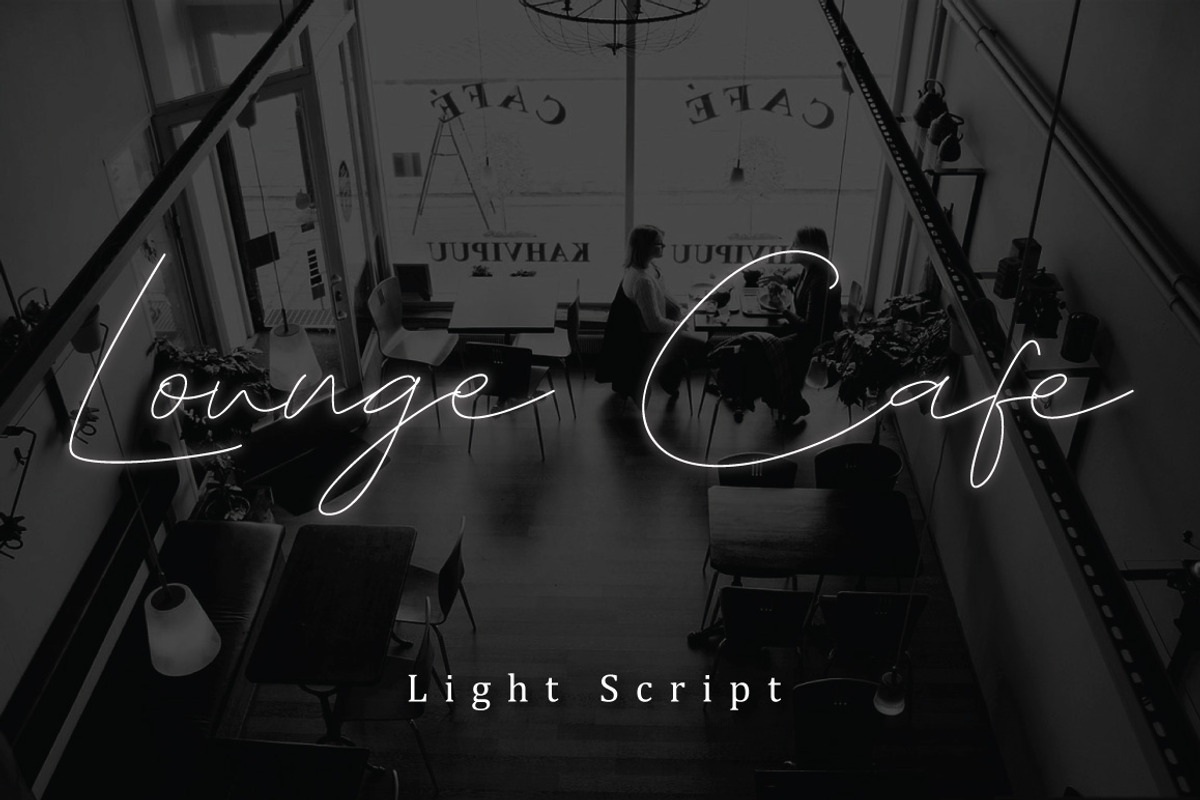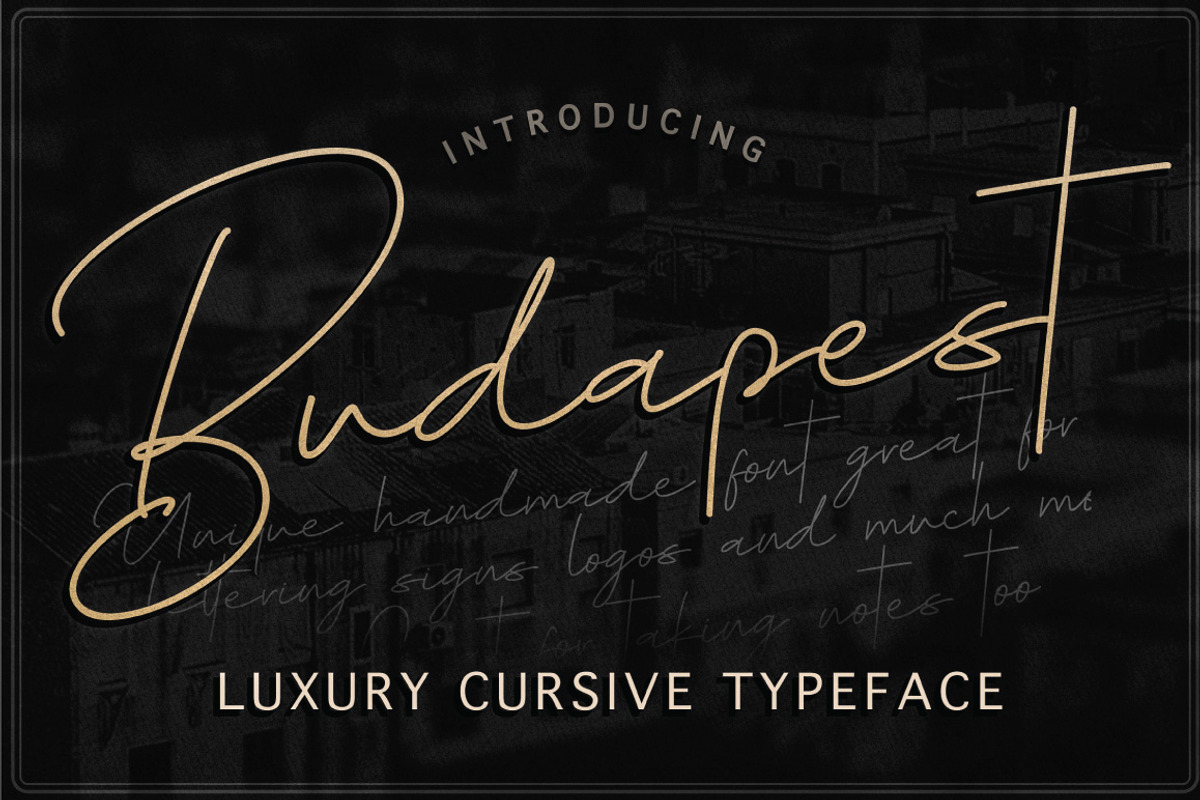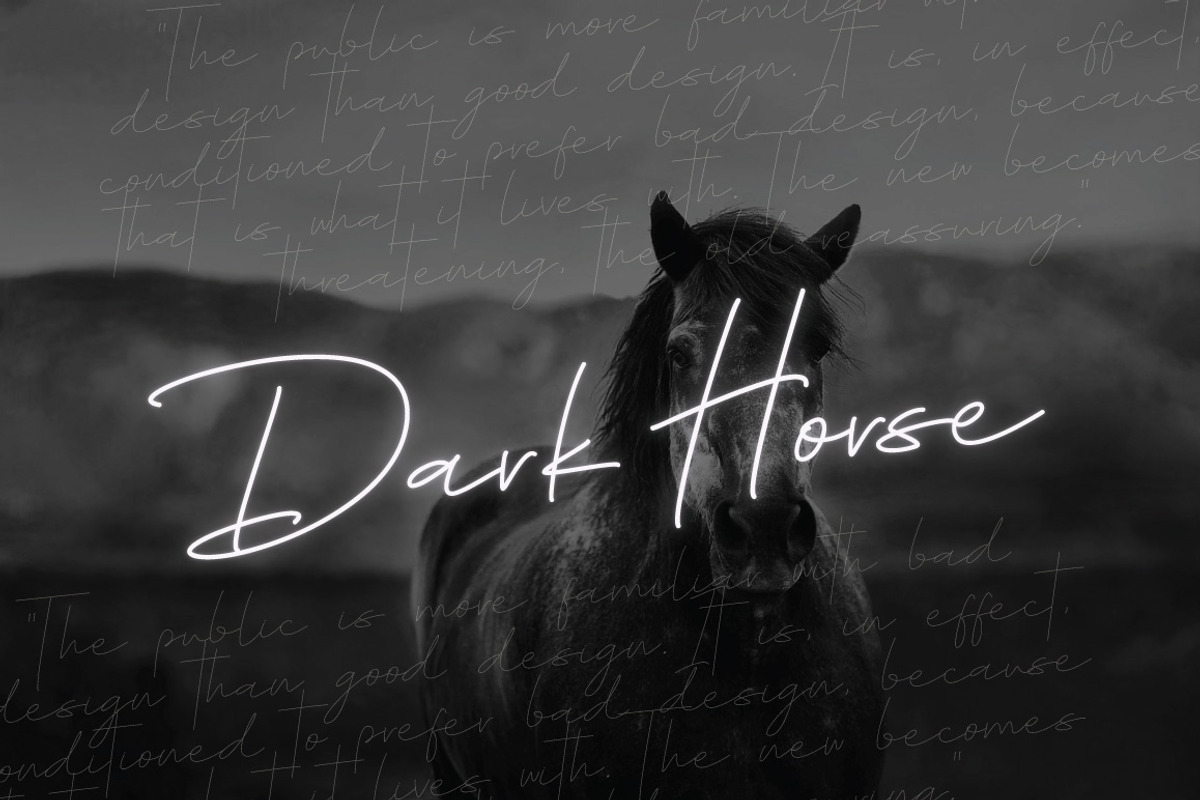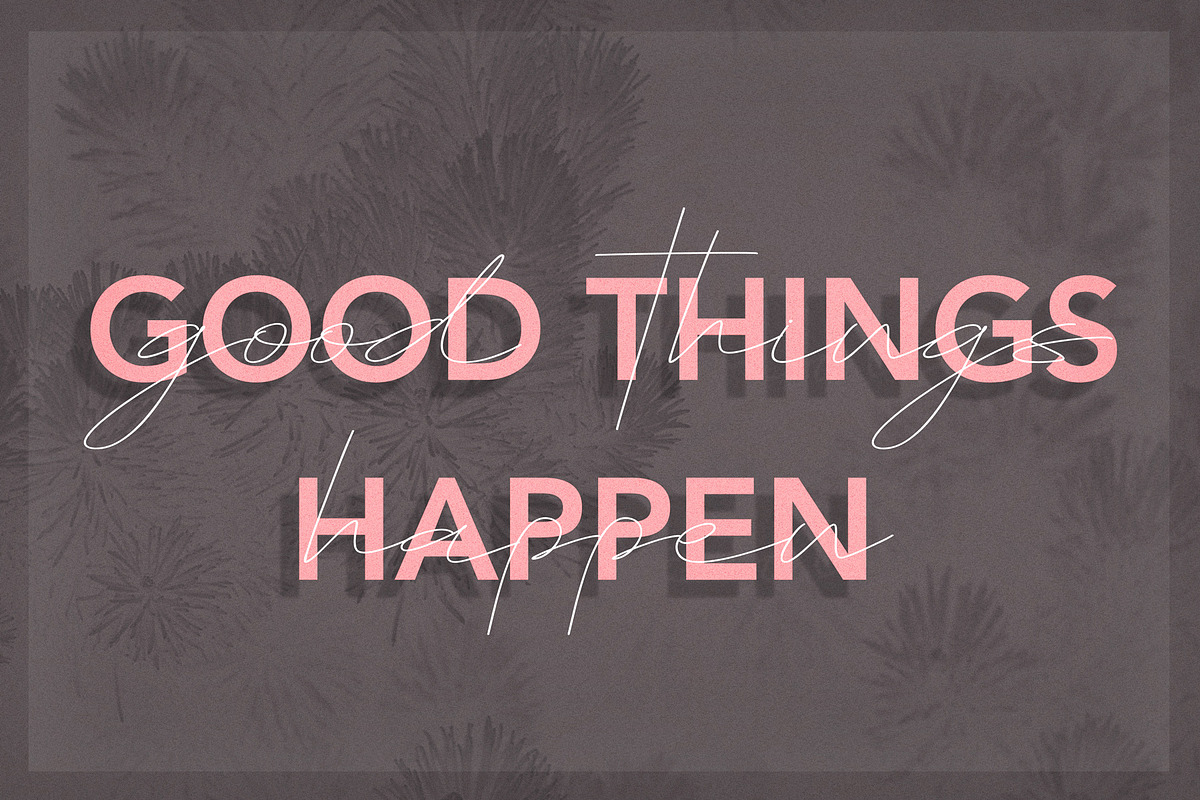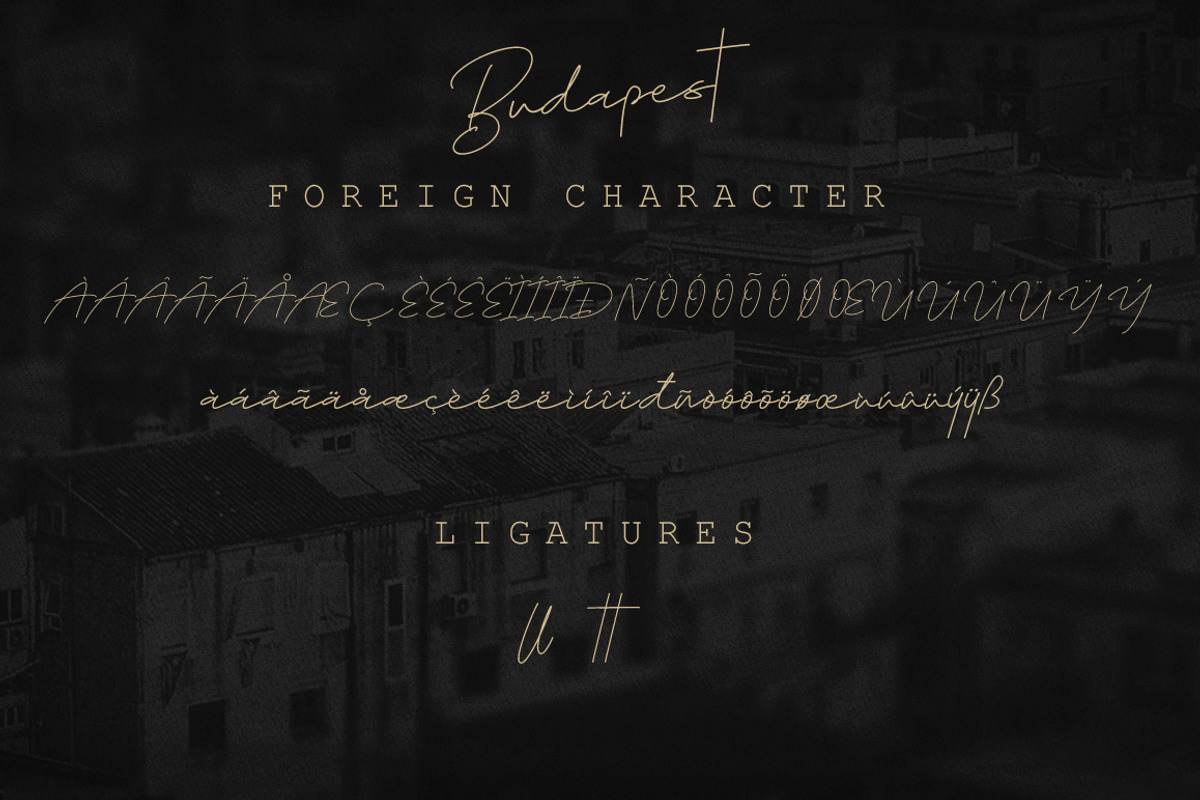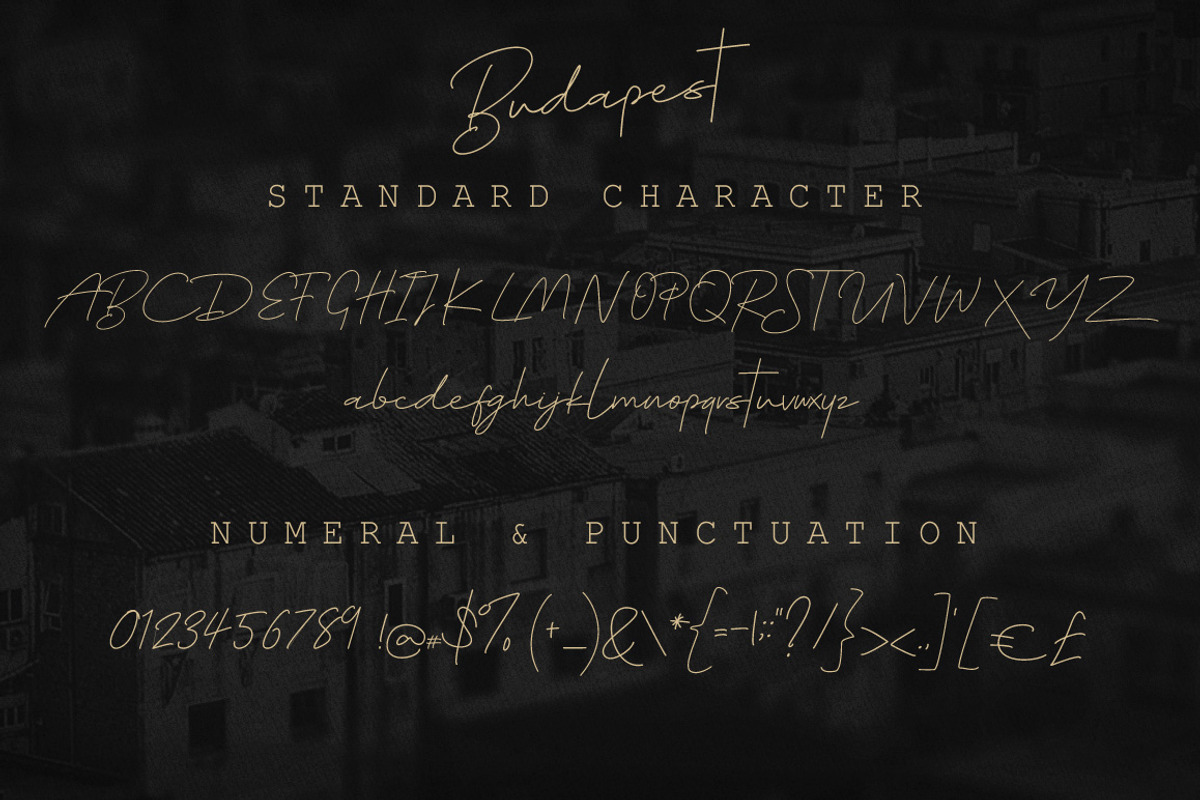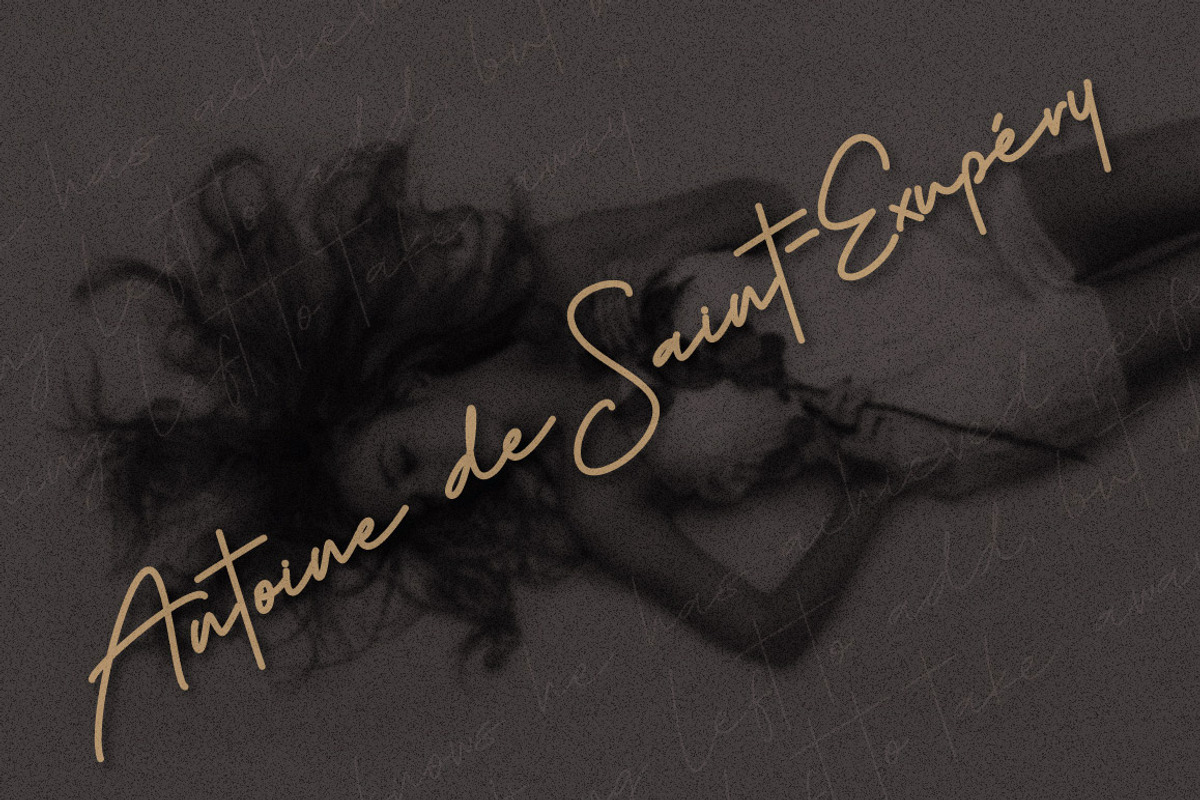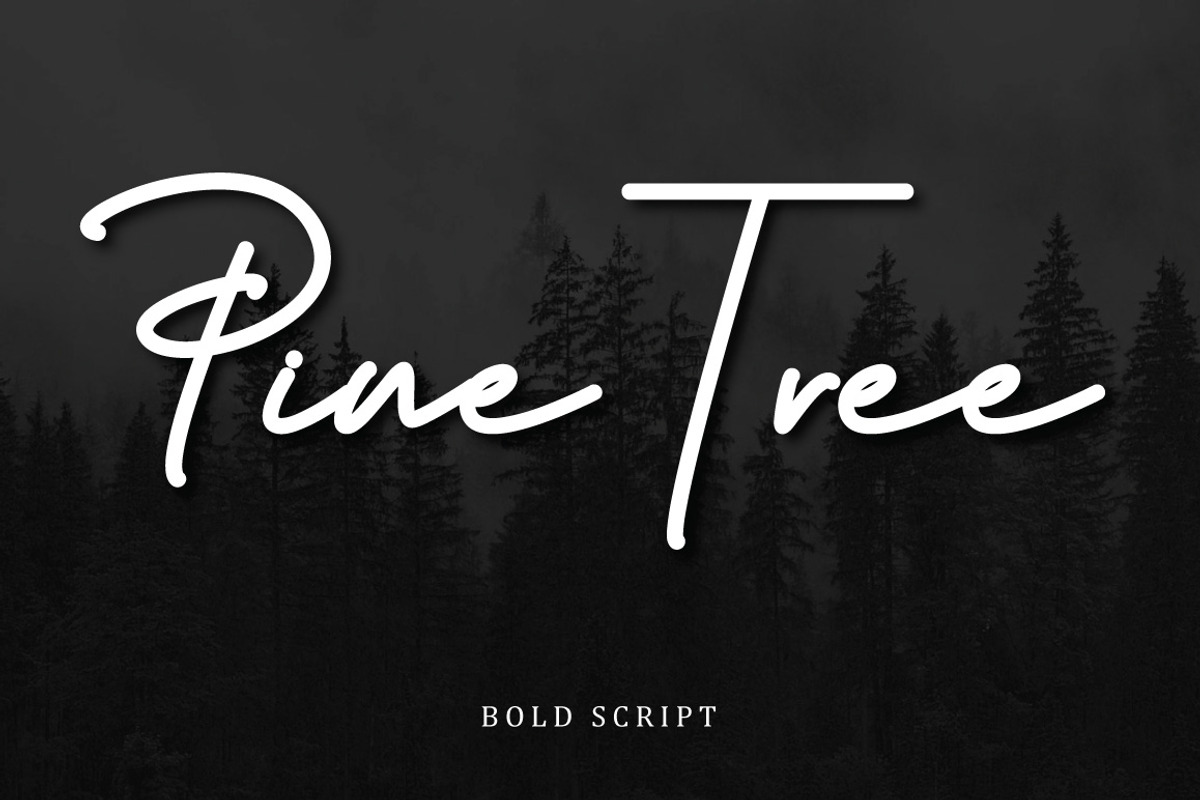
Budapest Script Font ( 6 Fonts )
BUDAPEST SCRIPT FONT!
Comes in 3 styles REGULAR, LIGHT AND BOLD
'Budapest' is a handwritten signature script with a natural & stylish flow. This collection of scripts is perfect for personal branding.
These typefaces work well for many different aesthetics. They work well with something like cosmetic, liquor labels, signage, & any type of signature-styled logo.
Multilingual Support is included for the following languages: Cornish, Danish, English, Estonian, Faroese, Filipino, Finnish, French, Friulian, Galician, German (Switzerland), Gusii, Icelandic, Indonesian, Irish, Italian, Kabuverdianu, Kalenjin, Kinyarwanda, Luo, Luxembourgish,Norwegian Bokmål, Norwegian Nynorsk, Portuguese, Romansh, Scottish Gaelic, Spanish, Swedish, Swiss German.